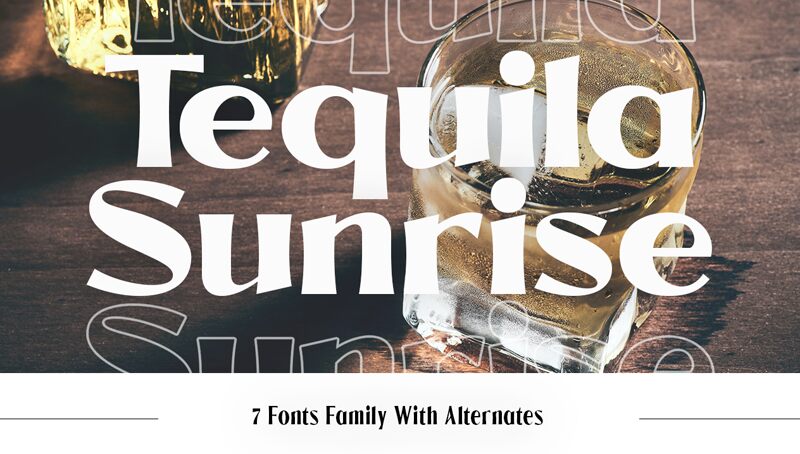
Tequila Sunrise Demo Black
Tequila Sunrise Black is a font that harkens back to the vibrancy and exuberance of retro design. With its bold presence and expanded letterforms, it evokes the spirit of vintage advertising and playful nostalgia. The creation by TypeClassHeroes has a distinctive flair that makes it stand out, perfect for when a touch of character is needed to bring design concepts to life.
Its aesthetic appeal lies in its ability to marry the charm of yesteryear with the clarity required for modern visuals. Tequila Sunrise Black's robust style makes it ideal for headlines, logos, and any project requiring a memorable typographic statement. Its friendly curves and generous proportions suggest a welcoming tone, fitting for creative endeavors aiming to strike an engaging, approachable vibe.